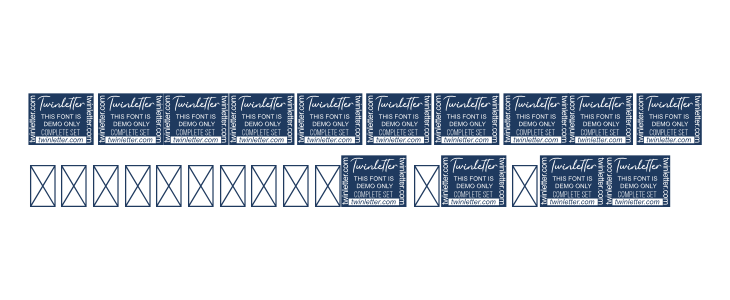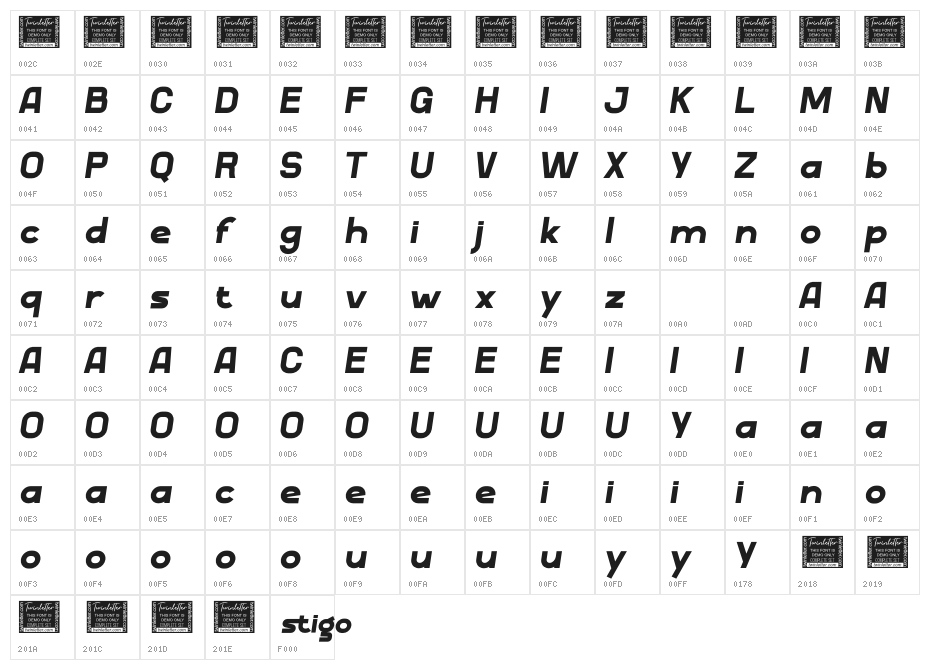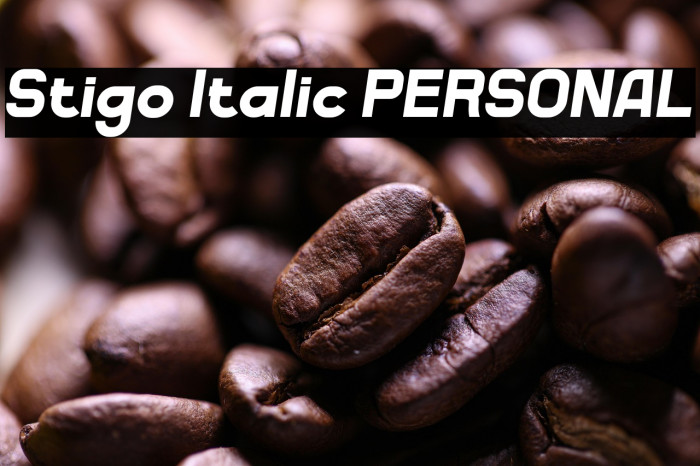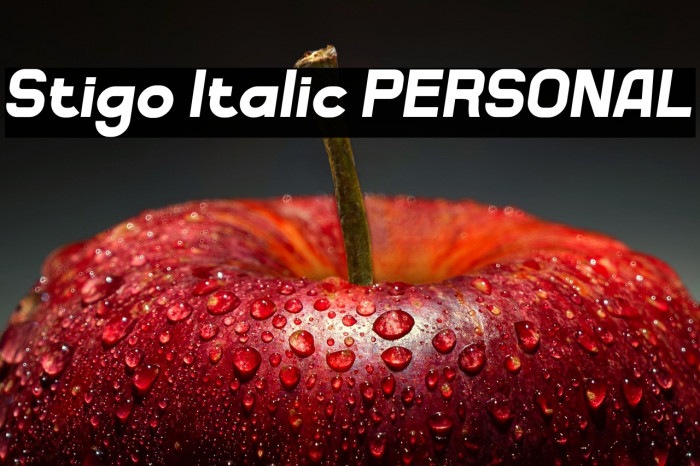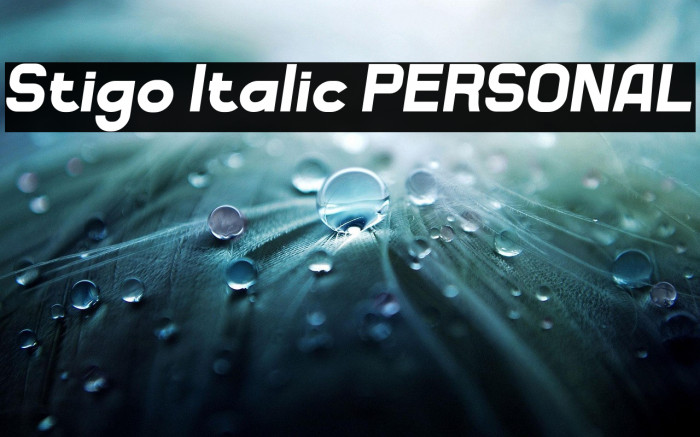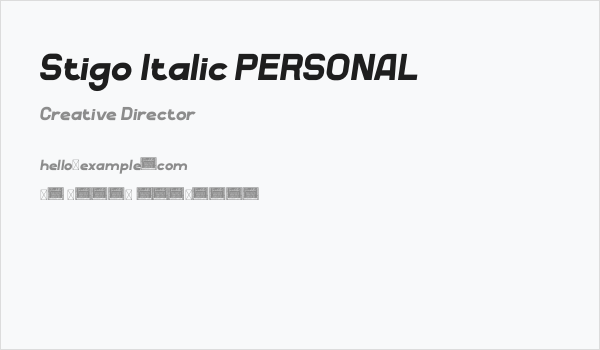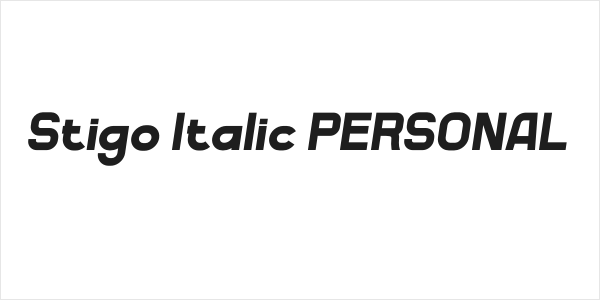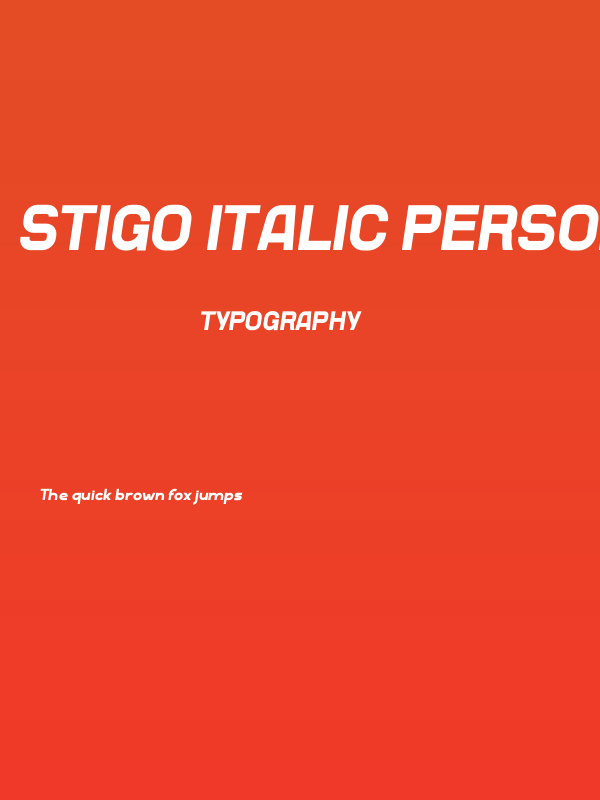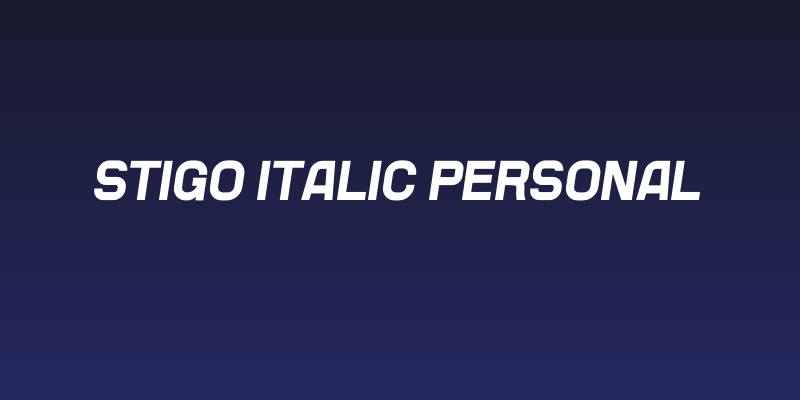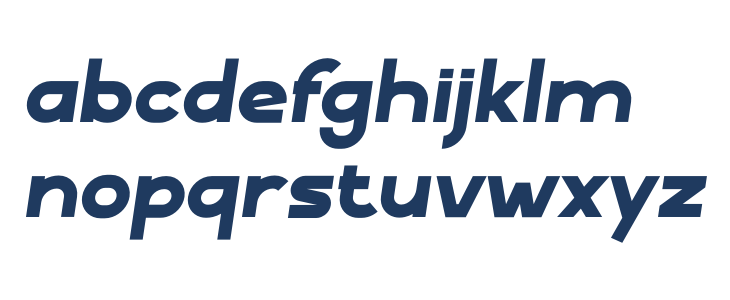
Stigo Italic PERSONAL Font
Stigo Italic PERSONAL Description
This typeface features a modern, italicized style with a strong emphasis on angular lines and a forward-leaning posture. The uppercase letters are bold and assertive, while the lowercase letters maintain a consistent slant, enhancing the dynamic appearance. The numerals are clear and legible, matching the overall aesthetic. Special characters are designed to complement the alphabet, maintaining the same angular and italicized characteristics. The font's design is suitable for creating a sense of motion and energy, making it ideal for contemporary projects.
| Proposed Projects | Ideal for branding, sports team logos, dynamic posters, and modern advertising campaigns. |